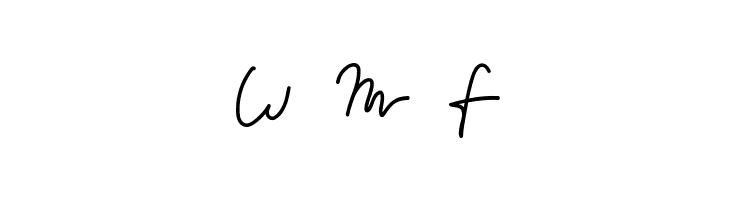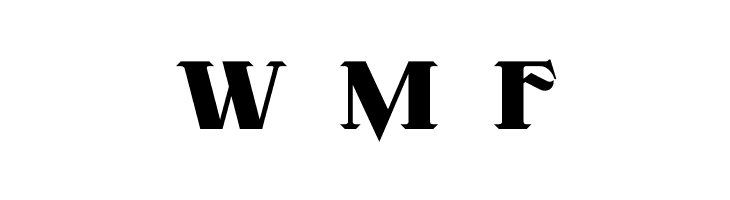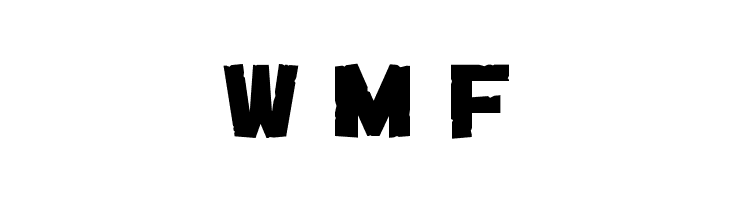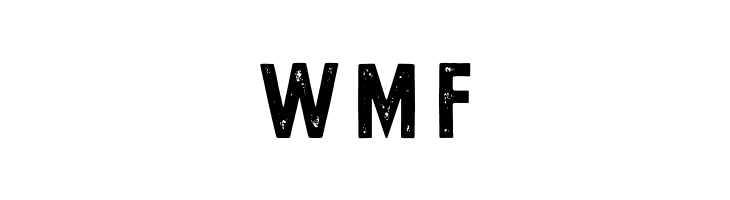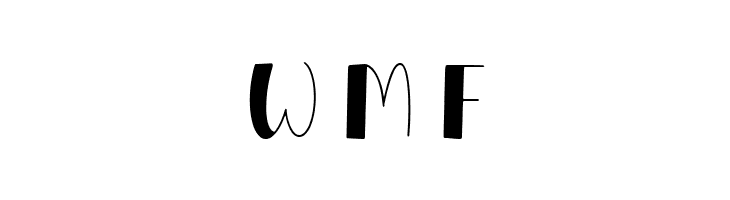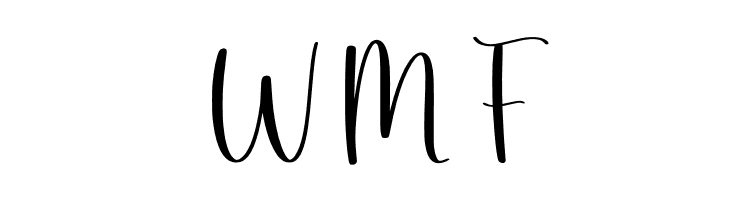
A whimsical and flowing font with elegant, curvaceous letterforms.
A bold, playful font with a hand-drawn, rustic charm.
A flowing, cursive font with elegant, connected letters.
A bold, hand-drawn font with an expressive and dynamic style.
A bold, decorative font with intricate details and flourishes.
A bold, rounded sans-serif font with a modern and approachable style.
A rugged, distressed font with a vintage, hand-crafted appearance.
A whimsical and elegant script font with flowing, interconnected letterforms.
A bold, dynamic script font with a modern and elegant style.
A bold, pixelated font with a retro video game aesthetic.
A bold, distressed font with a cracked texture for an edgy look.
A bold, hand-drawn font with a playful and impactful style.
A rugged, organic font with a handcrafted, natural texture.
A bold, playful handwritten font with uneven strokes and a casual feel.
A bold, brush-style font with an energetic and artistic flair.
A playful, frog-themed font with whimsical, hand-drawn characters.
A textured, brush-like font with a mystical and dynamic style.
A bold, distressed font with a vintage, rugged appearance.
A bold, textured font with a rustic, handcrafted appearance.
A bold, playful font with thick, rounded, and bubbly characters.
A playful, spooky decorative font with Halloween-themed elements.
A bold, playful font with a spooky, hand-drawn appearance.
A bold, playful font with dynamic strokes and a modern, artistic flair.
A playful, handwritten font with rounded edges and consistent height.
A playful and elegant script font with a handwritten touch.
A dinosaur-themed decorative font with playful, bold characters.
Playful, rounded handwritten font.
Bold, playful handwritten script with connected letters.
Ornate, distressed decorative display font with vintage flair.